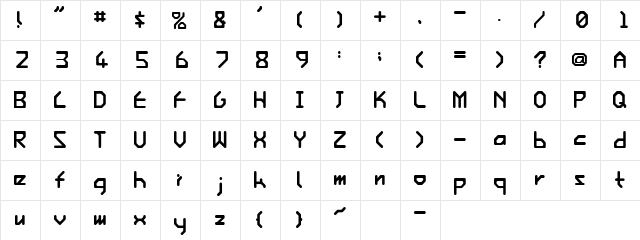
Ishi Regular E. Font Preview
Ishi Regular E.
Design Context for Ishi Typeface
Ishi takes a measured approach to typography — its balanced proportions and neutral character make it a reliable workhorse for both digital and print work.